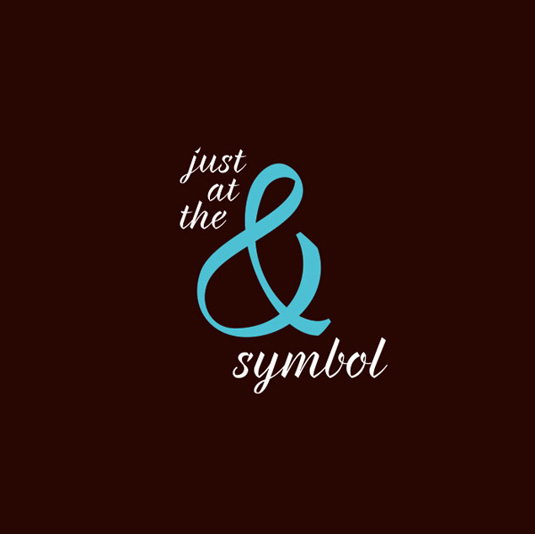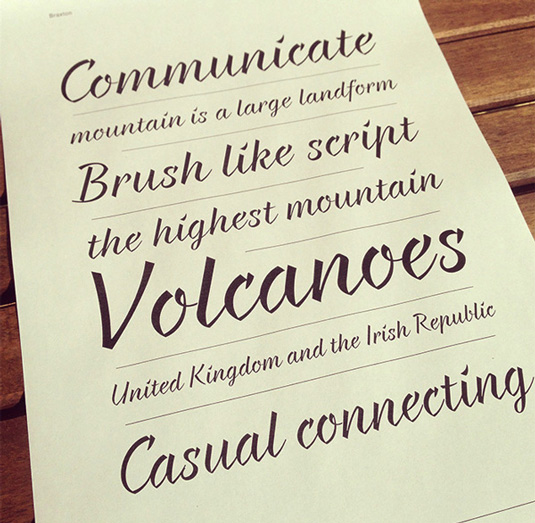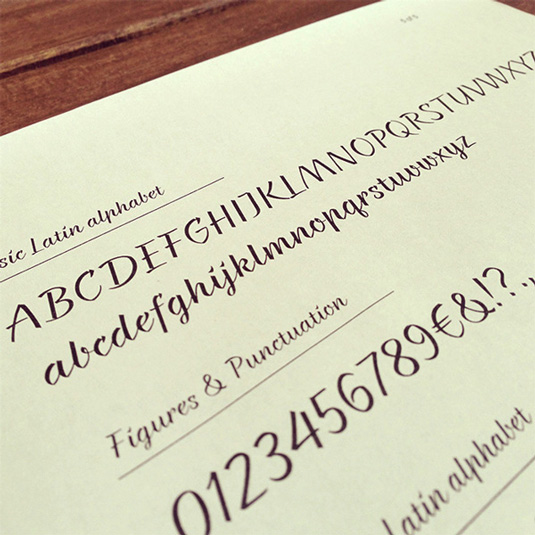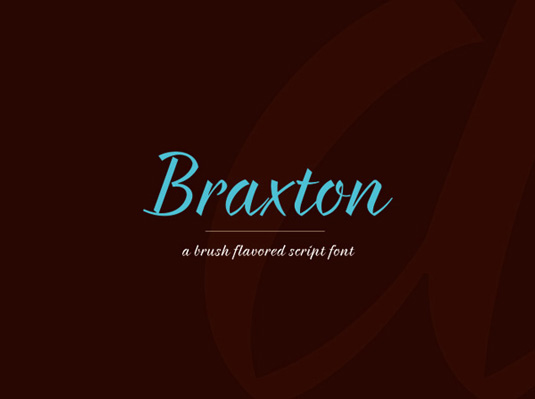
Font of the day: Braxton by Evgeny Tkhorzhevsky
Braxton by Evgeny Tkhorzhevsky and Fontfabric
This brush-flavoured script font was designed by calligrapher Evgeny Tkhorzhevsky and presented by font foundry Fontfabric. One style (Normal) is available for direct free download only from Fontfabric.com.